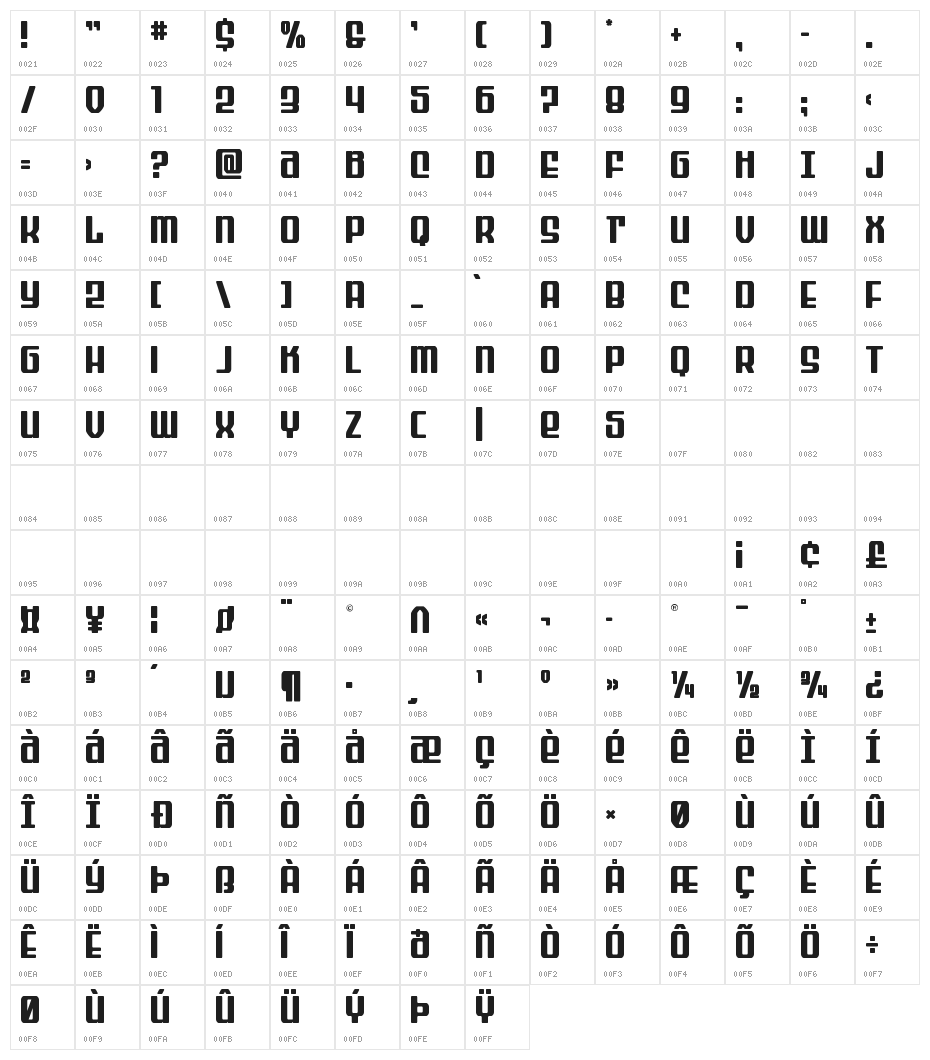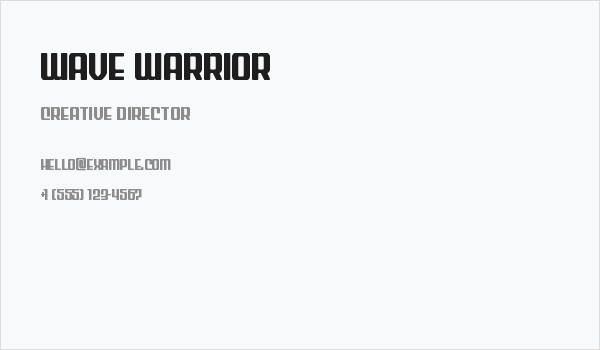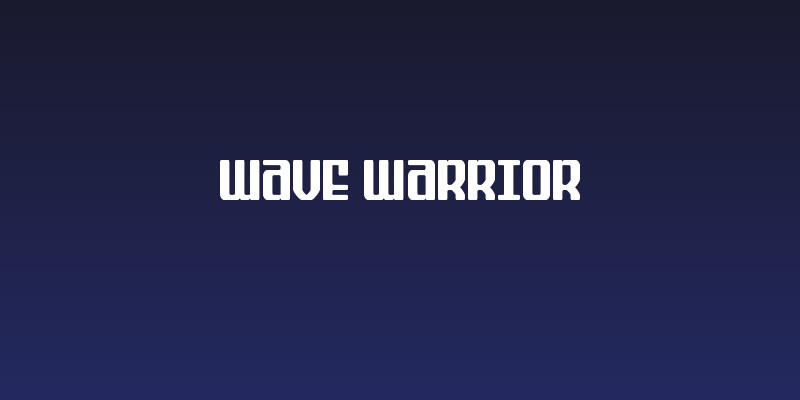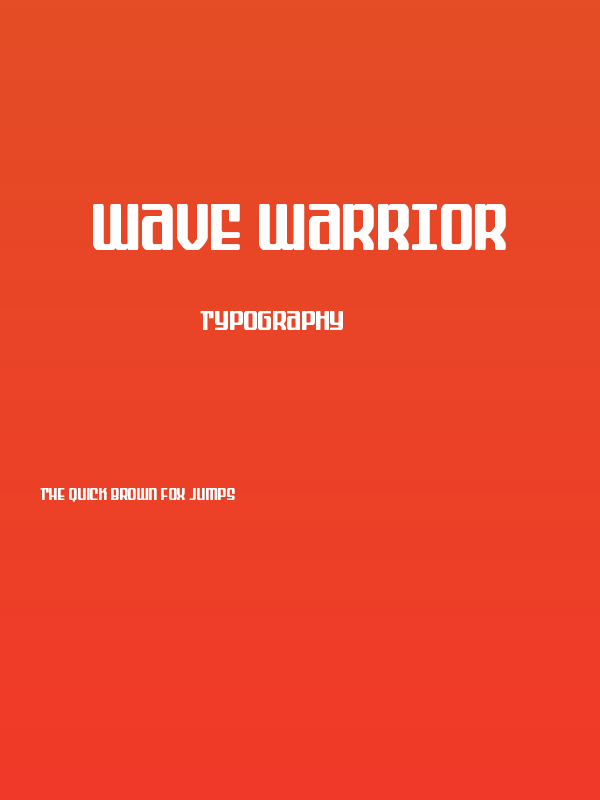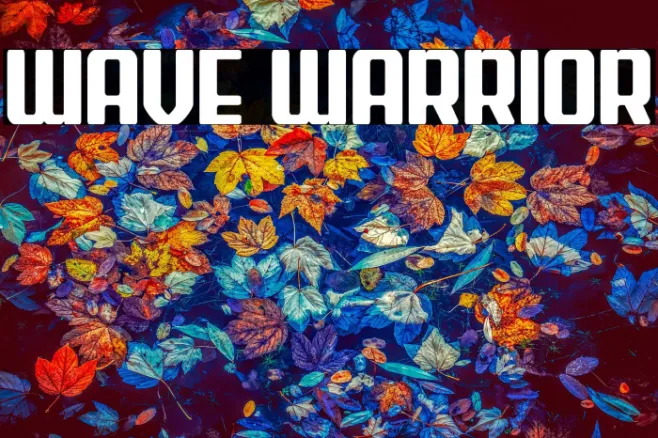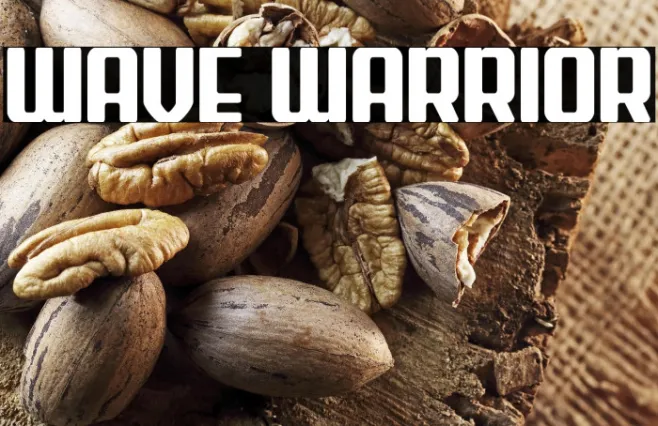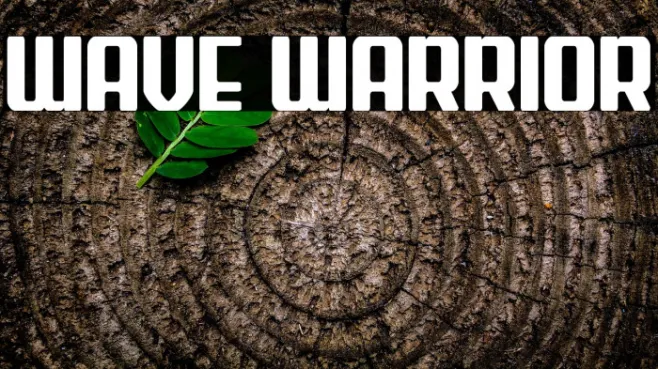
Wave Warrior Font
Wave Warrior Description
This font features a bold and robust design with a strong geometric structure. The characters are uniformly thick, creating a powerful and impactful appearance. The uppercase letters are particularly striking, with a squared-off style that conveys a sense of stability and strength. The lowercase letters maintain the same boldness, ensuring consistency throughout. Numbers and special characters are designed to match the overall aesthetic, making them easily recognizable and visually cohesive. This font is ideal for projects that require a strong visual presence.
| Proposed Projects | Ideal for branding, posters, headlines, and any design requiring a bold statement. |